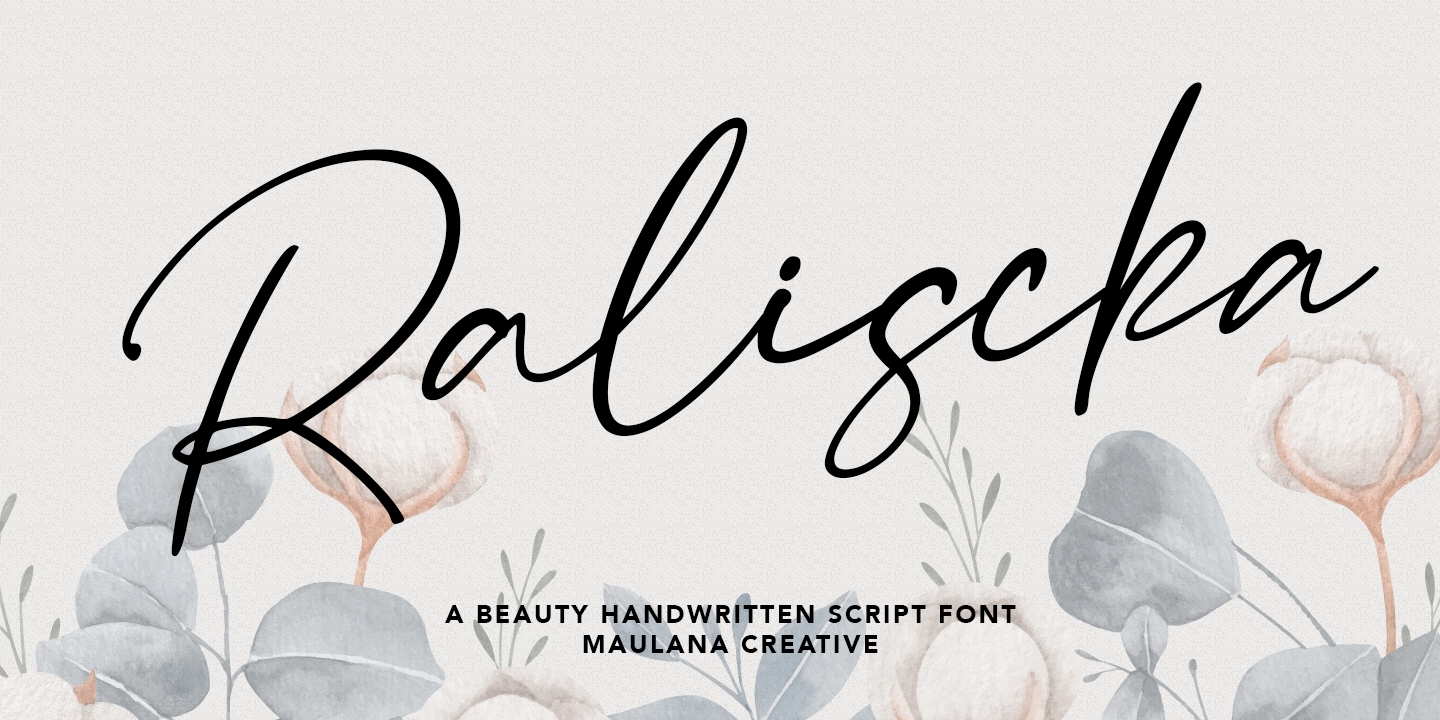
This elegant script font is perfect for feminine lifestyle branding, beauty salon logos, fashion boutique signage, spa wellness campaigns, cosmetics packaging, jewelry marketing, wedding stationery, and graceful design projects that celebrate sophisticated femininity and natural beauty.
Raliscka Font is exciting because it embodies ethereal grace with its flowing letterforms that dance like silk ribbons in a gentle breeze. The font captures feminine strength and delicate sophistication in perfect harmony, creating typography that whispers elegance.
The Raliscka Font family includes regular and bold versions with decorative swashes, feminine flourishes, and elegant ornaments, providing designers with comprehensive tools for creating enchanting typography that captivates with graceful charm.
Ready to embrace graceful femininity? Raliscka Font Free Download offers designers flowing letterforms that radiate with natural beauty and sophisticated charm. This captivating typeface combines feminine aesthetics with professional versatility, making it ideal for beauty brands, fashion houses, and wellness companies. Whether you're designing luxury spa brochures, feminine fashion campaigns, or elegant cosmetics packaging, this font delivers enchanting appeal. The gracefully scripted characters feature flowing elegance while maintaining excellent readability across feminine applications. Perfect for businesses in beauty, fashion, wellness, and luxury lifestyle sectors that celebrate feminine grace and empowerment. The font's elegant construction creates memorable brand recognition that resonates with sophisticated women worldwide. Each letter showcases deliberate beauty that mirrors the timeless appeal of feminine sophistication. Download today and infuse your creative projects with graceful elegance using this premium script font that transforms ordinary text into extraordinary expressions of feminine beauty and the enchanting allure of Raliscka Font Free Download grace.